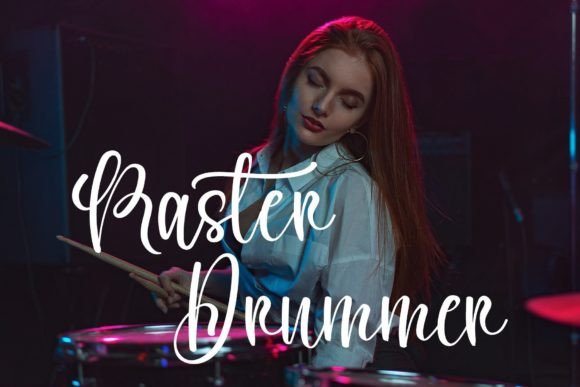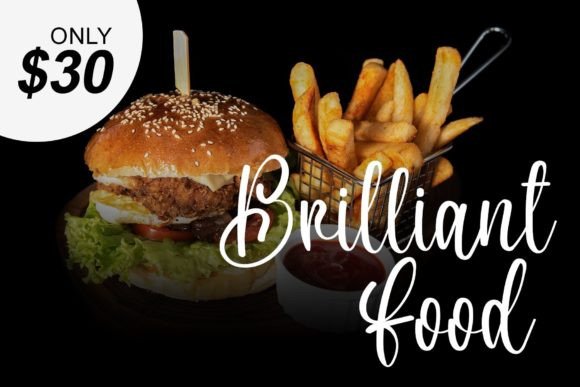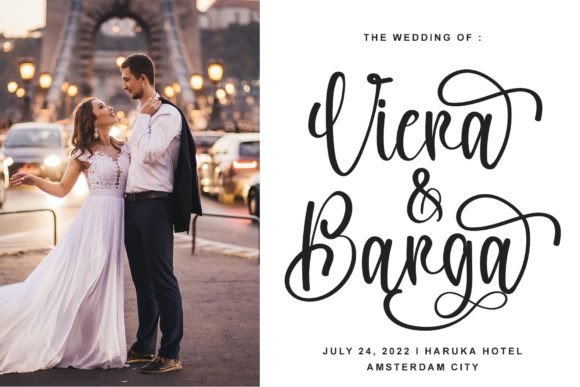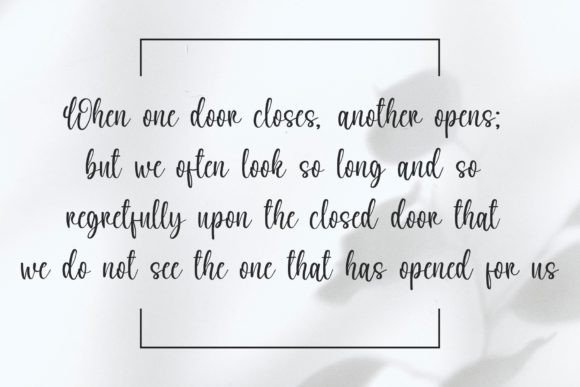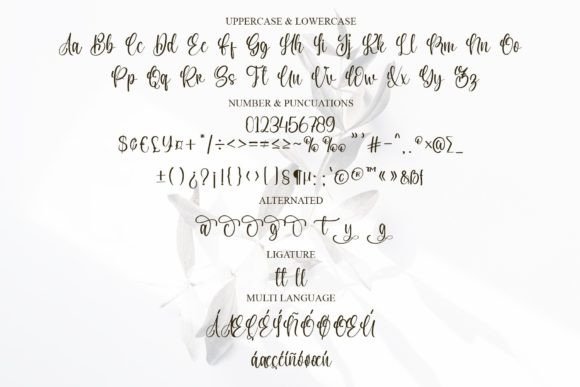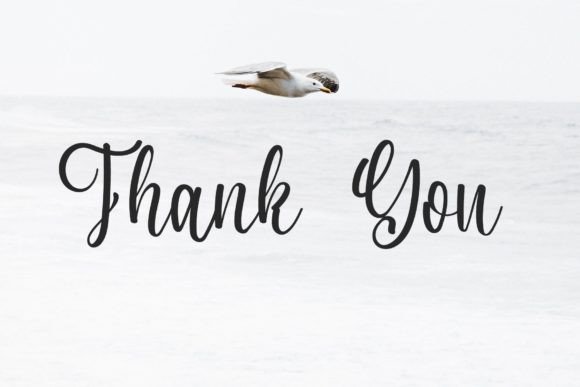
Staying Font
About Staying Font
“Staying” is a chic and refined script font that radiates sophistication and elegance. Its stylish alternates and ligatures enhance the font’s appeal, making it a perfect choice for a wide array of design projects. The font’s versatility and attention to detail ensure that it elevates any creative endeavor it’s applied to.
With its chic and refined appearance, “Staying” is a natural fit for upscale branding projects, luxurious invitations, high-end fashion designs, and elegant packaging. Its graceful letterforms and meticulous design create a sense of class and timelessness, making it ideal for projects that require a touch of sophistication.
The inclusion of stylish alternates and ligatures adds a layer of customization to the font, allowing designers to create truly unique and personalized typography. Whether you’re designing a logo, a wedding invitation, a magazine layout, or any other project, “Staying” offers creative possibilities to make your designs stand out.
One of the standout features of “Staying” is its PUA encoding, which grants easy access to all the glyphs and swashes. This feature empowers designers to experiment with different combinations and styles, ensuring that their designs are as distinctive and elegant as their vision requires.
Incorporate “Staying” into your creative projects, and experience how it enhances the overall aesthetic with its chic and refined presence. Its sophisticated charm, combined with the flexibility provided by its alternates and ligatures, makes it a valuable asset for designers seeking to create polished and elegant visuals. Let “Staying” be the font that adds a touch of class and sophistication to your designs, leaving a lasting impression on your audience.